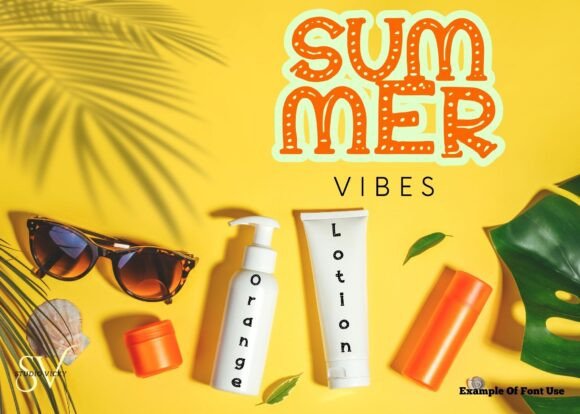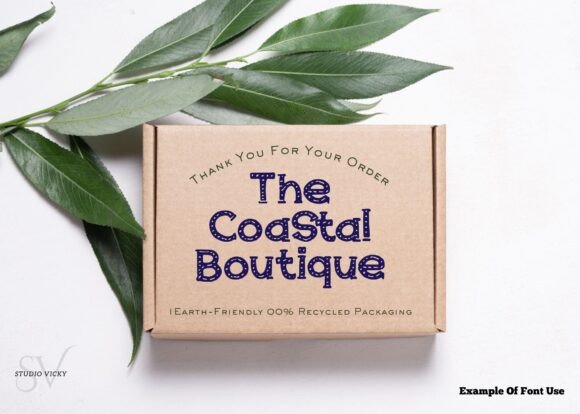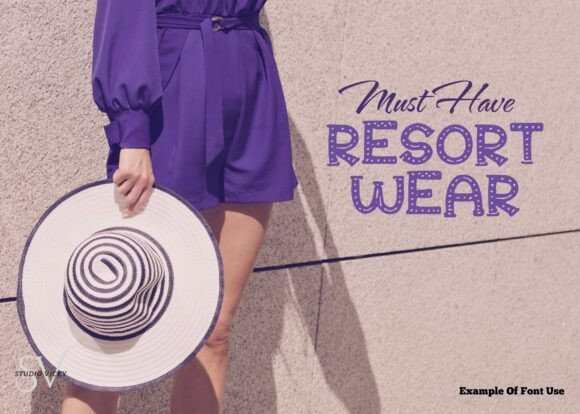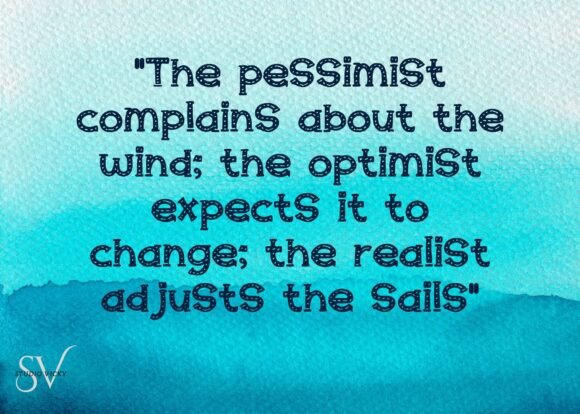
Introduction to Nautical Ties Font
Do you ever find yourself scrolling through design inspiration boards, searching for the perfect font to capture the essence of a summer breeze? For many of us, the right font can transport us to a seaside escape, where the sound of waves crashing against the shore is the only thing that matters. That’s where Nautical Ties Font comes in – a fun, coastal-inspired decorative font that brings a breezy, seaside charm to your designs.
Whether you’re working on a beach-themed project, creating summer invitations, or designing for ocean lovers, Nautical Ties Font is the perfect design resource to add a splash of whimsy and wave-washed style. With its stitched-style details and playful letterforms, this high-quality font is a must-have for any designer looking to elevate their creative project.
Key Features of Nautical Ties Font
- Unique Nautical Design: This font features a unique nautical-inspired design that adds a touch of elegance to any creative project.
- High-Quality Design Resource: The Nautical Ties Font is a high-quality design resource that can be used for a variety of projects, from wedding invitations to beach-themed designs.
- Perfect for Creative Projects: The Nautical Ties Font is a versatile design resource that can be used for a variety of creative projects, from beach-themed designs to nautical-inspired art.
Honest Review: Nautical Ties Font
I recently had the chance to try out the Nautical Ties Font, and I must say, it’s a fantastic addition to any designer’s toolbox. As a design resource, this font offers a unique and refreshing aesthetic that’s perfect for creative projects. ✨ The high quality of the font makes it a joy to work with, and the transparent background allows for seamless integration into any design.
- Unique and stylish design that’s perfect for nautical or beach-themed projects.
- High quality font that’s smooth and easy to read.
- Transparent background makes it easy to customize and integrate into any design.
- May not be suitable for formal or corporate projects due to its playful design.
- Some users may find the font a bit too bold or overpowering in certain contexts.
Overall, I’m thoroughly impressed with the Nautical Ties Font. It’s a fantastic resource for designers looking to add a touch of personality to their projects. With its unique design and high quality, it’s a must-have for anyone working on creative projects. ⚠️ Just be mindful of its limitations and use it accordingly.
Tips for Getting the Most Out of Nautical Ties Font
To get the most out of the Nautical Ties Font, use it with a transparent background to create a subtle and elegant design. Experiment with different font sizes, colors, and styles to add depth and visual interest to your design.
Common Use Cases for Nautical Ties Font
The Nautical Ties Font is ideal for creative projects such as wedding invitations, birthday party decorations, and nautical-themed designs. Its high quality and unique design make it a valuable design resource for any project requiring a touch of sophistication and elegance.